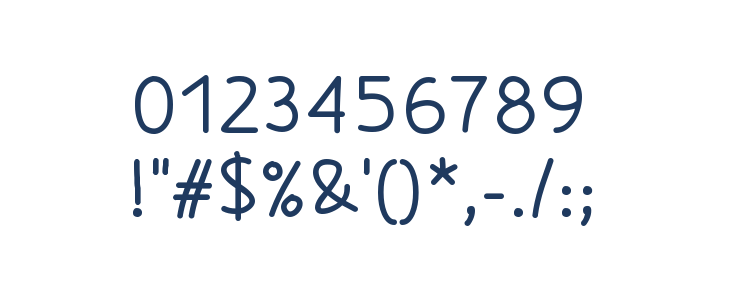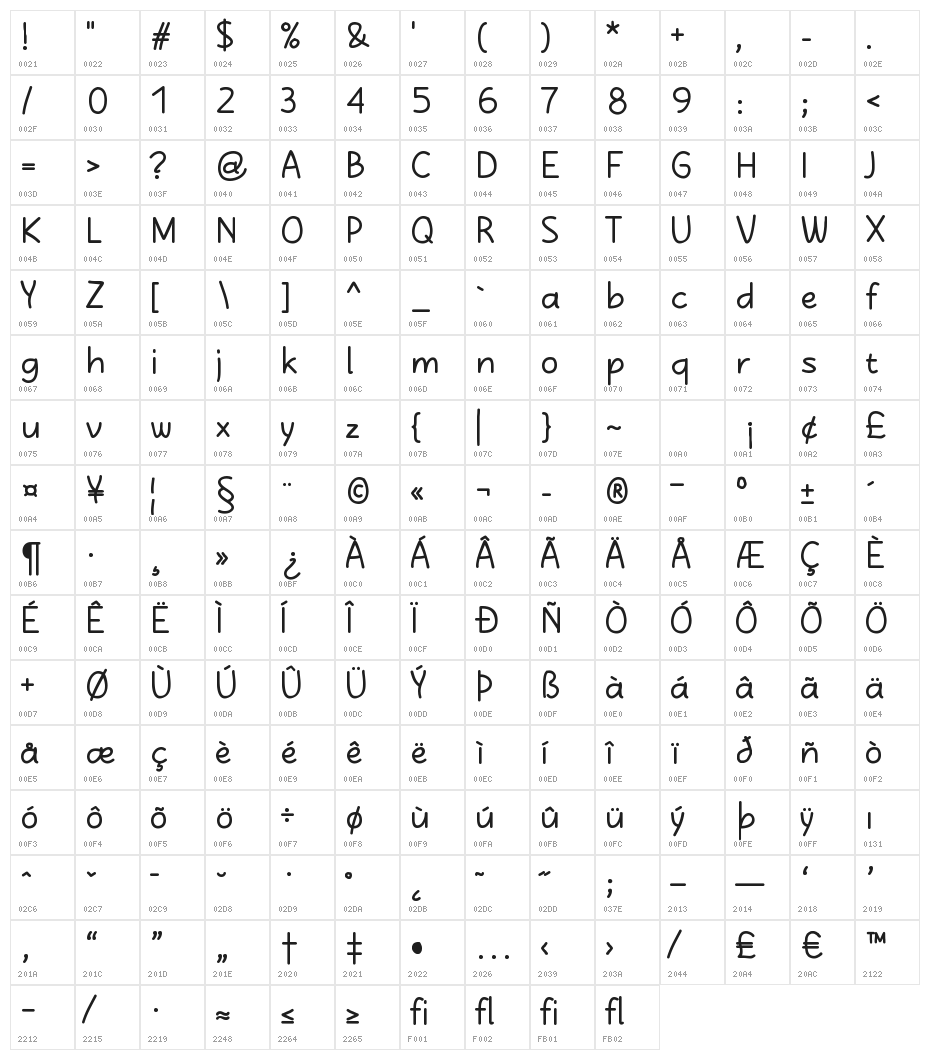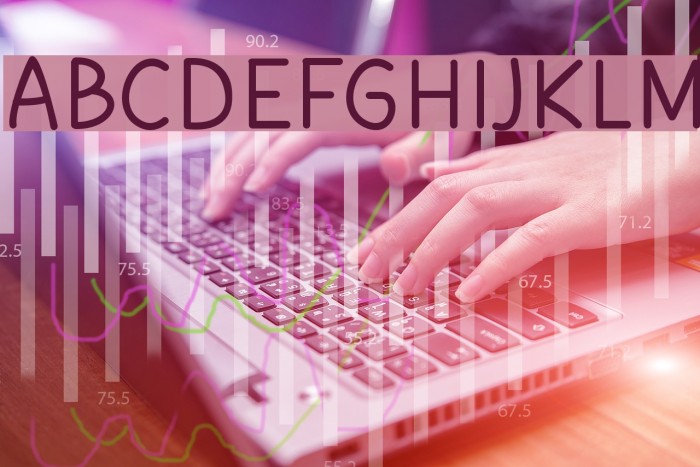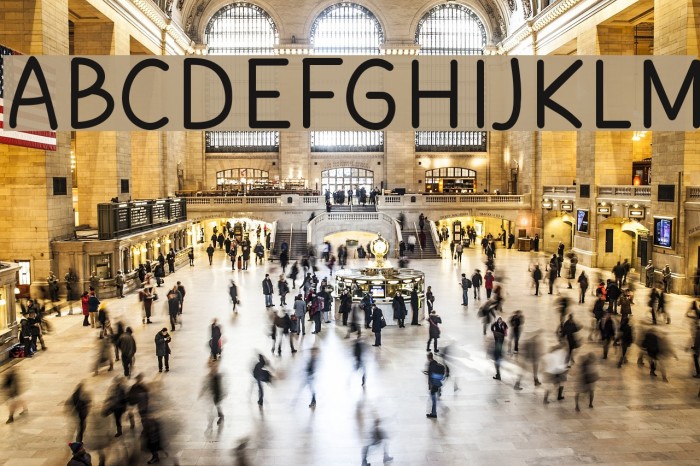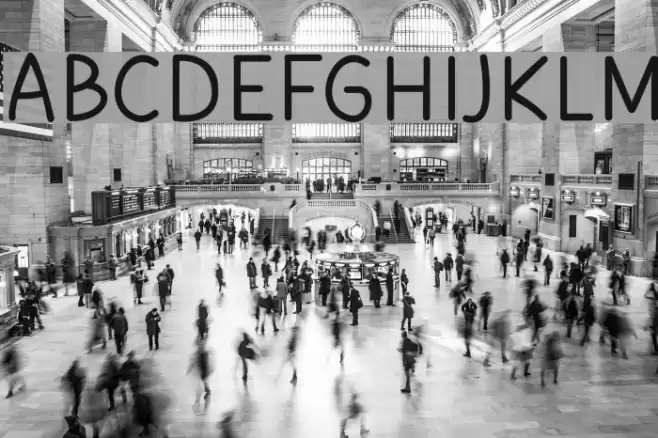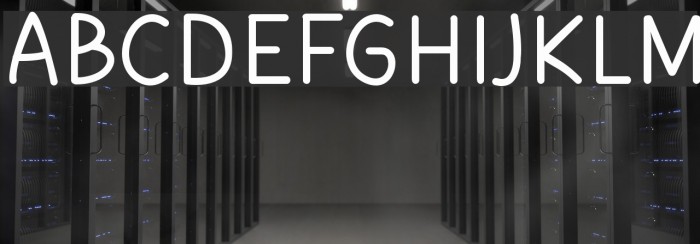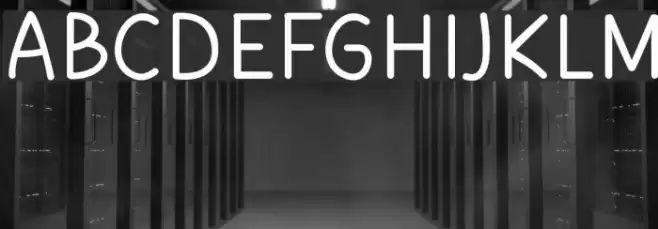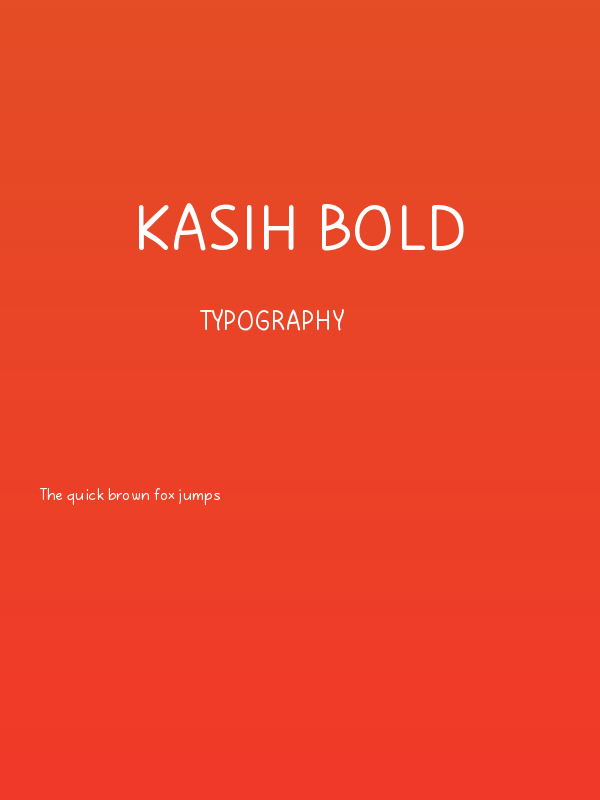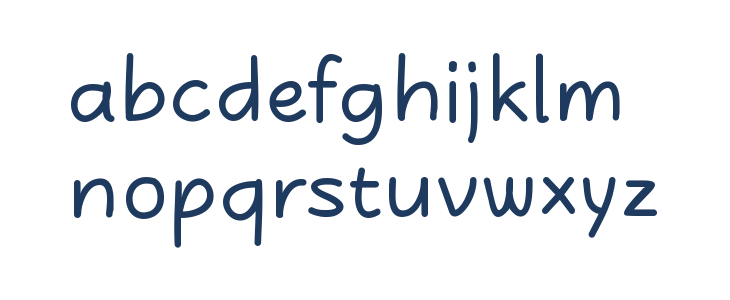
Kasih Bold Font
Kasih Bold Description
This font features a playful and rounded design, characterized by smooth curves and a friendly appearance. The letters are evenly spaced, providing a clean and approachable look. The uppercase and lowercase letters maintain a consistent style, with rounded edges and a slightly informal touch. The numerals and special characters follow the same design principles, ensuring uniformity across all glyphs. This font is versatile and can be used in various contexts where a casual and inviting tone is desired.
| Proposed Projects | Ideal for children's books, casual branding, playful posters, and social media graphics. |